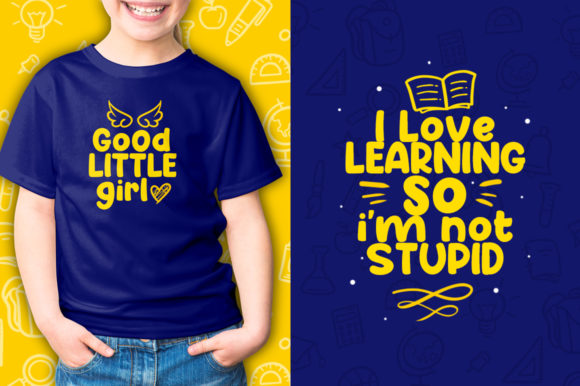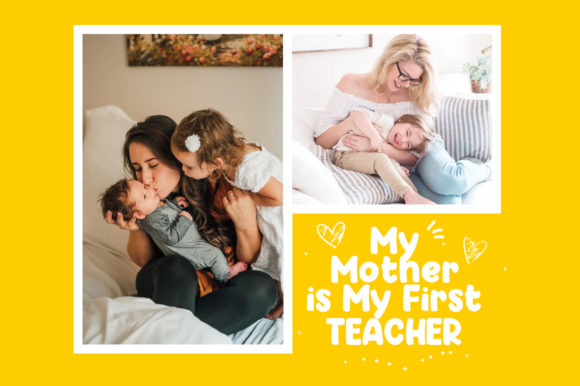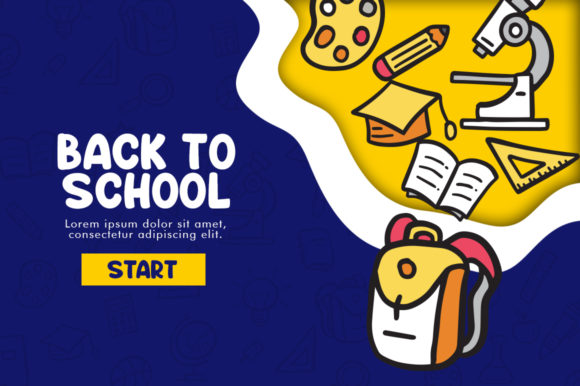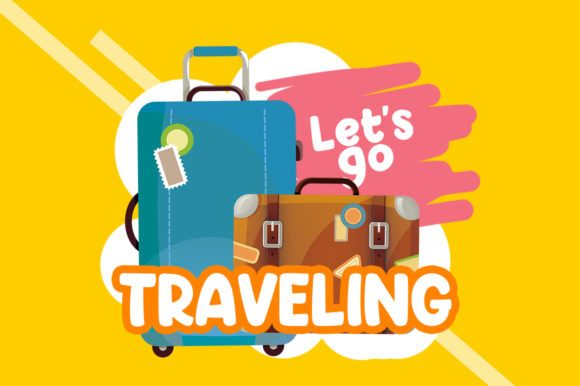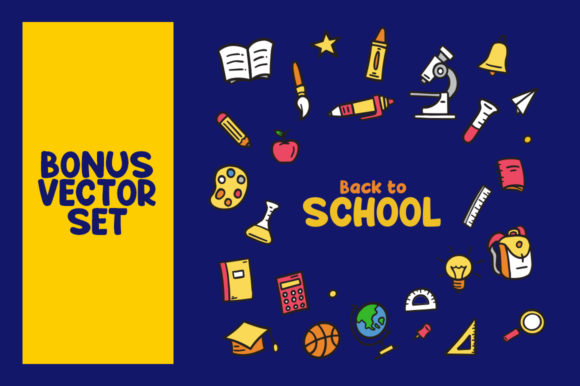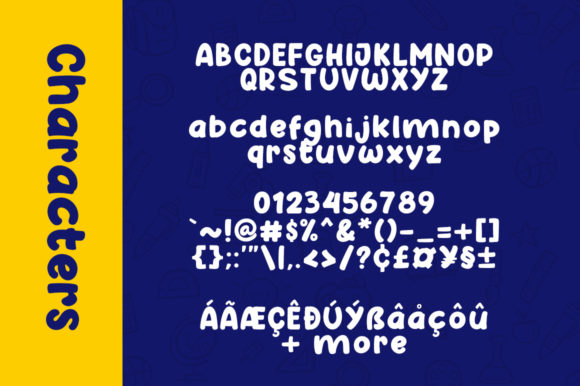
Introducing the Happy School Font: A Cheerful and Whimsical Typeface for Creative Projects
Are you tired of using the same old fonts for your creative projects? Look no further than the Happy School Font, a bold display typeface that exudes a cheerful and playful vibe. This delightful font is perfect for designers, crafters, and anyone looking to add a touch of whimsy to their work.
The Happy School Font: A Bold and Cheerful Display Typeface
The Happy School Font is a bold and eye-catching typeface that is sure to grab attention. Its cheerful design makes it perfect for a variety of creative projects, from posters and flyers to crafts and DIY tutorials. With its unique and playful style, this font is sure to add a touch of personality to any project.
Key Features of the Happy School Font
- Bold and eye-catching design: The Happy School Font is a bold and attention-grabbing typeface that is sure to stand out.
- Cheerful and playful vibe: This font exudes a cheerful and playful vibe, making it perfect for creative projects that require a touch of whimsy.
- Whimsical style: The Happy School Font has a unique and playful style that is sure to add personality to any project.
- Versatile: This font can be used for a variety of creative projects, from posters and flyers to crafts and DIY tutorials.
Uses for the Happy School Font
The Happy School Font is a versatile typeface that can be used for a variety of creative projects. Here are a few ideas to get you started:
- Posters and flyers: Use the Happy School Font to create eye-catching posters and flyers for events, promotions, and more.
- Crafts and DIY tutorials: Add a touch of whimsy to your craft and DIY tutorials with the Happy School Font.
- Social media graphics: Use this font to create cheerful and engaging social media graphics.
- Invitations and party decorations: The Happy School Font is perfect for creating invitations and party decorations that require a playful and whimsical touch.
Why Choose the Happy School Font?
There are many fonts to choose from, but the Happy School Font stands out from the rest. Here are a few reasons why:
- Unique and playful style: The Happy School Font has a unique and playful style that is sure to add personality to any project.
- Easy to read: Despite its bold and playful design, the Happy School Font is easy to read, making it perfect for use in a variety of creative projects.
- Versatile: This font can be used for a variety of creative projects, from posters and flyers to crafts and DIY tutorials.
Tips for Using the Happy School Font
Here are a few tips for using the Happy School Font:
- Use it sparingly: While the Happy School Font is a bold and eye-catching typeface, it can be overwhelming if used too much. Use it sparingly to add a touch of whimsy to your project.
- Pair it with other fonts: The Happy School Font pairs well with other fonts, such as serif and sans-serif fonts. Experiment with different pairings to find the one that works best for your project.
- Experiment with colors: The Happy School Font looks great in a variety of colors. Experiment with different colors to find the one that works best for your project.
The Happy School Font is a bold and cheerful display typeface that is perfect for creative projects that require a touch of whimsy. With its unique and playful style, this font is sure to add personality to any project. Whether you’re a designer, crafter, or simply someone looking to add a touch of personality to your work, the Happy School Font is a great choice.